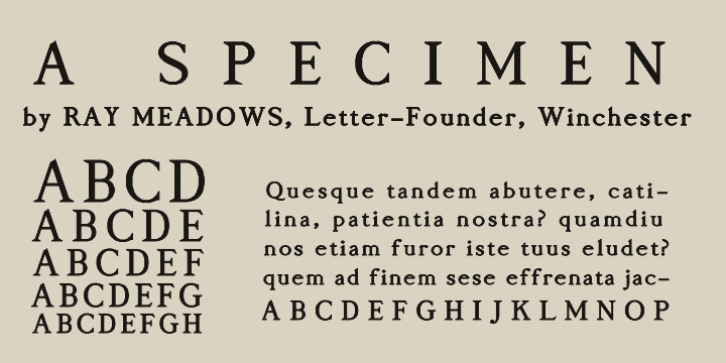
Based on William Caslon’s design (c1720) which was itself based on Dutch Baroque typefaces. The old saying “when in doubt, use Caslon.” can now be updated ... “use RM Almanack instead!”
Due to the modular nature of this design there may be a slight lack of smoothness to the curves at very large point sizes (around 100 pt and above).